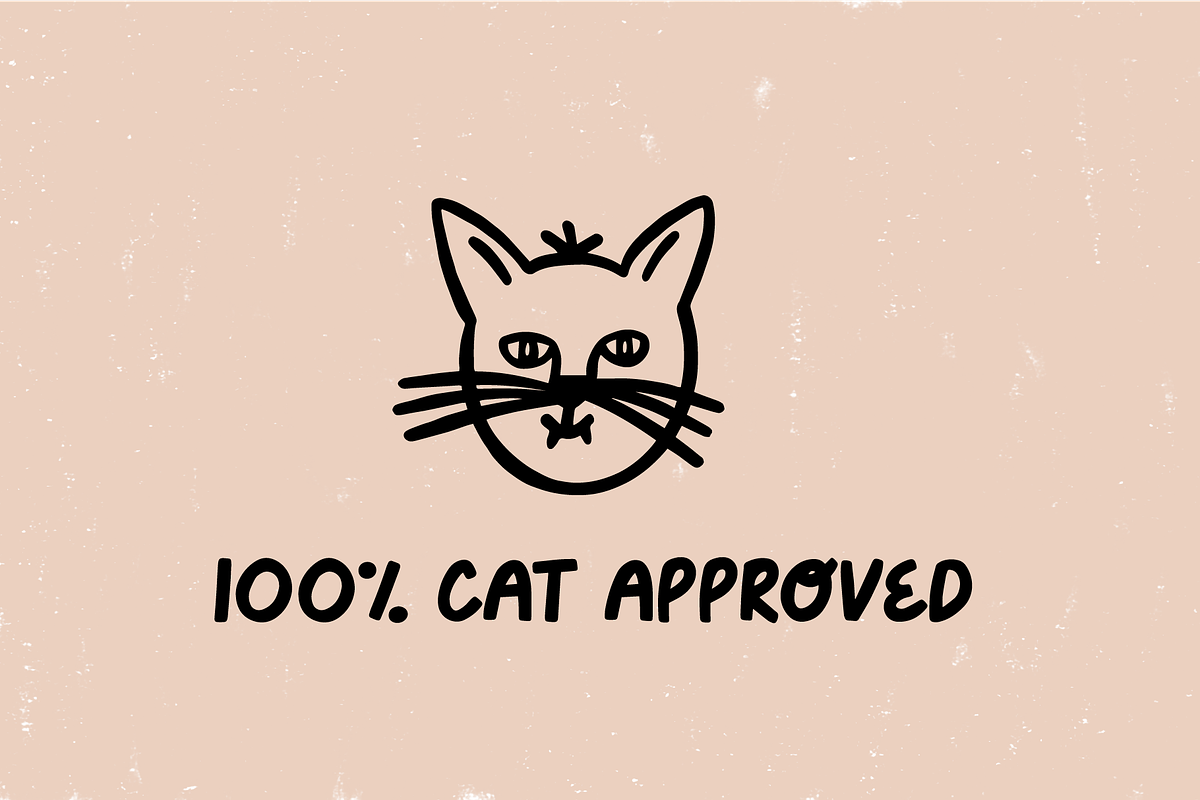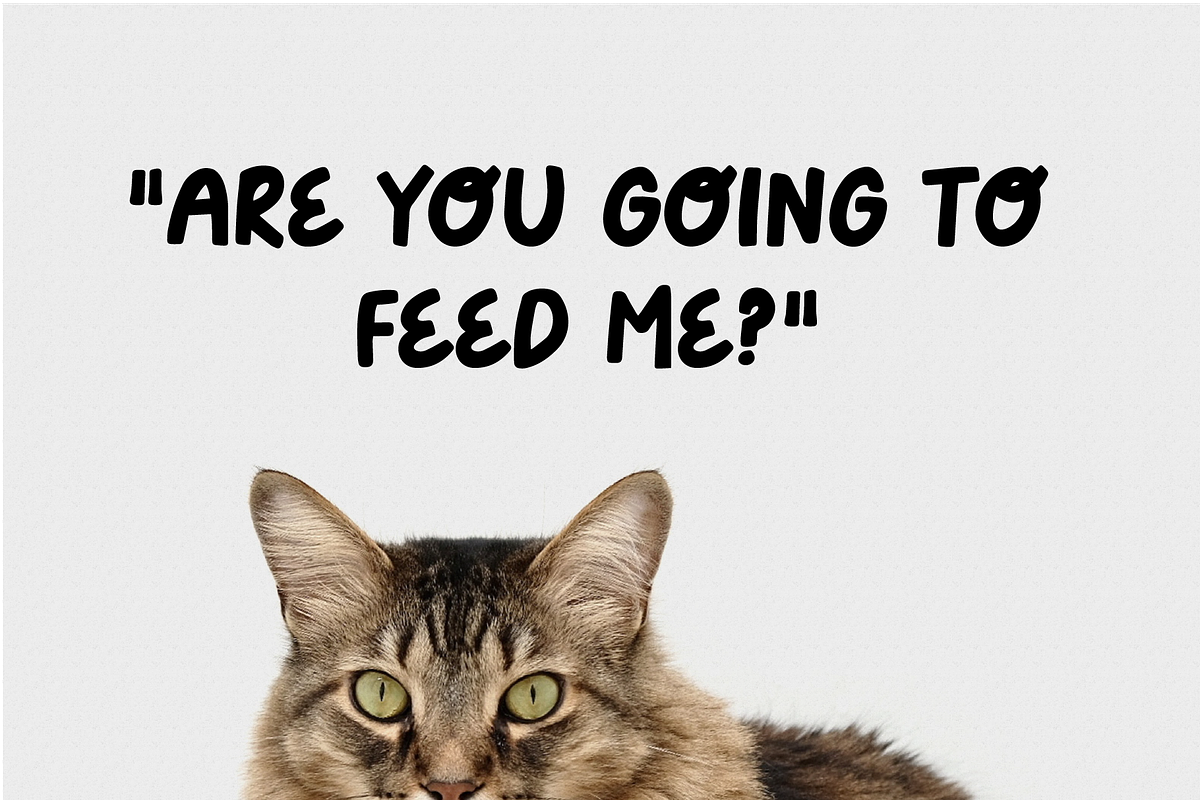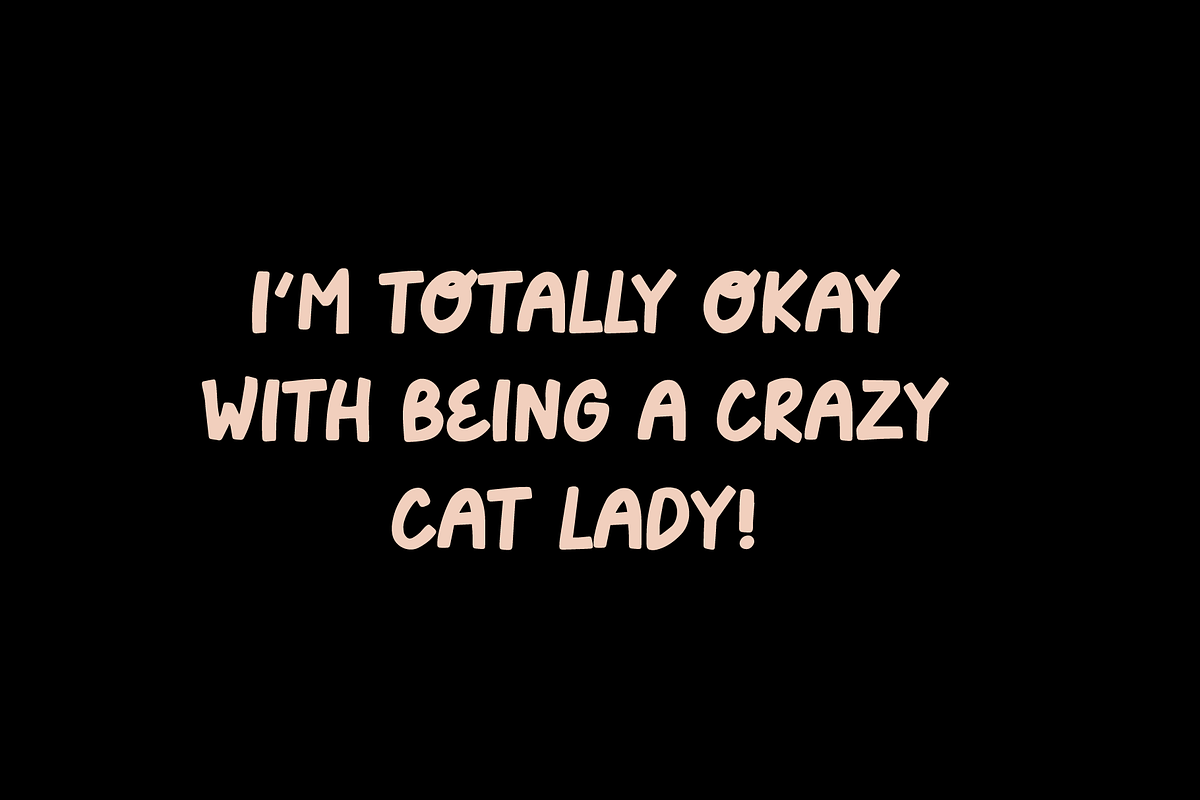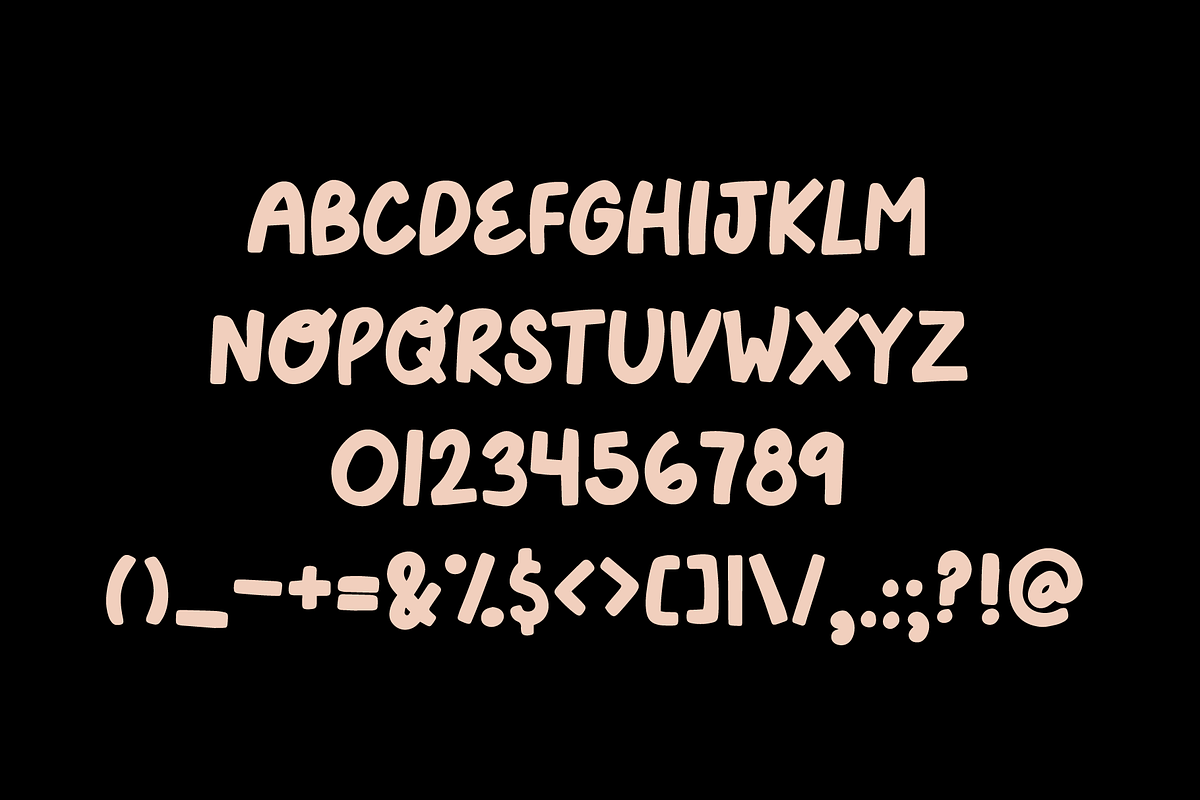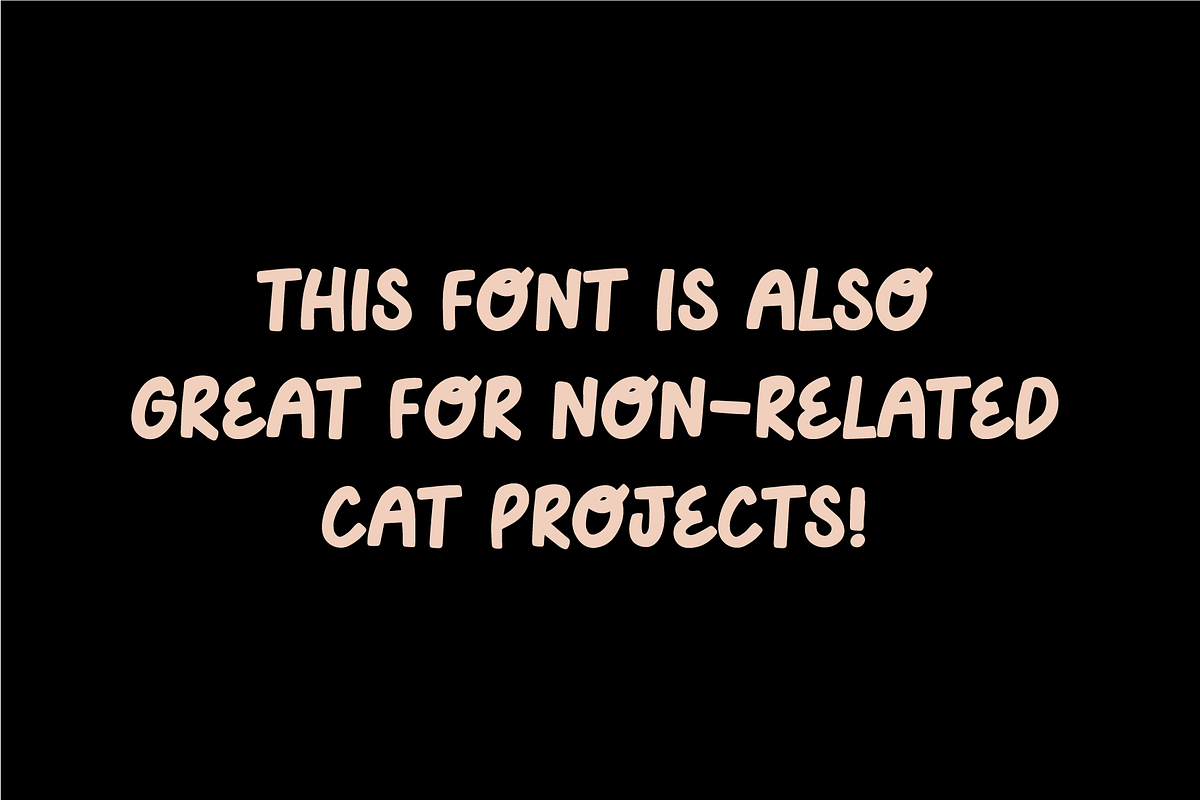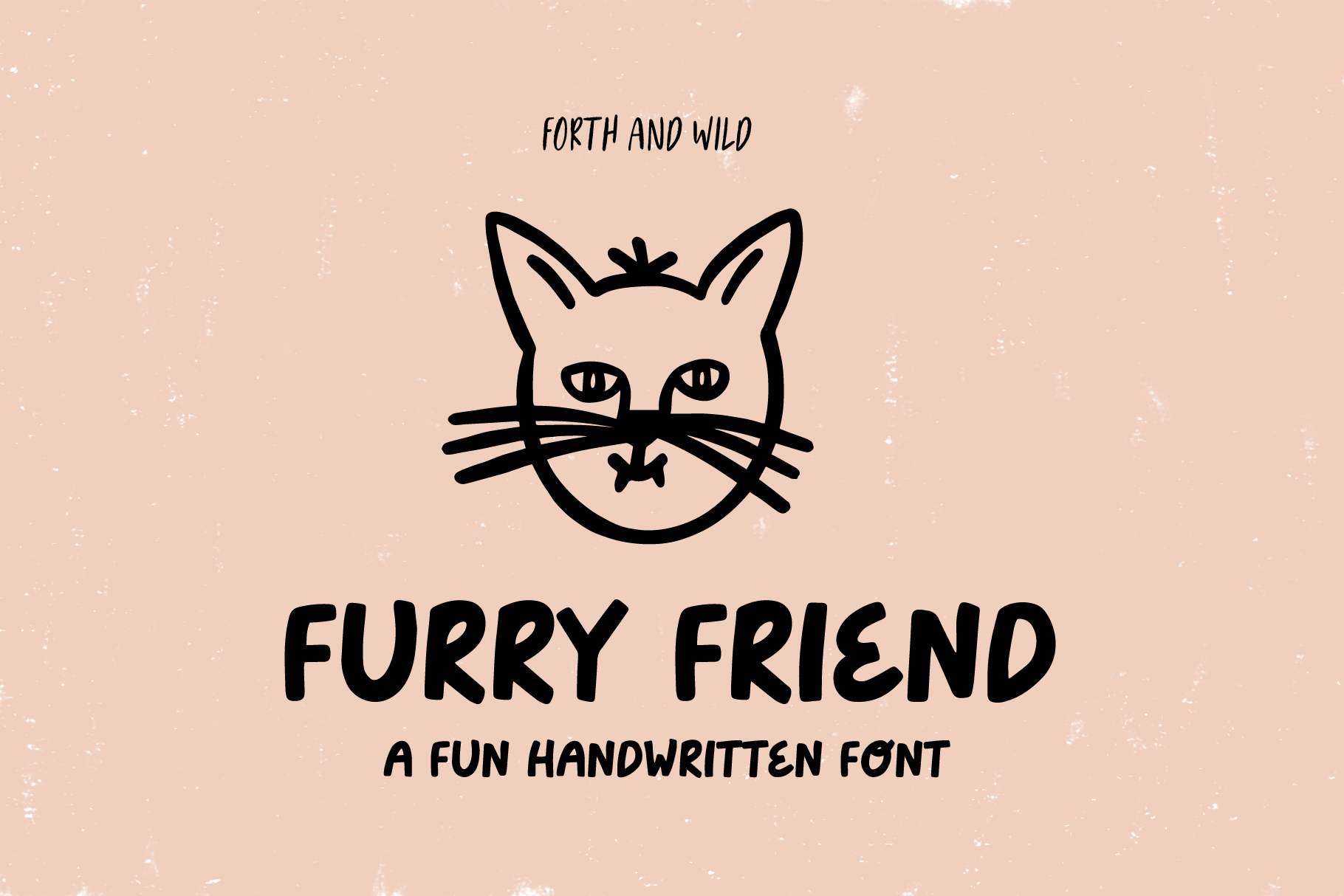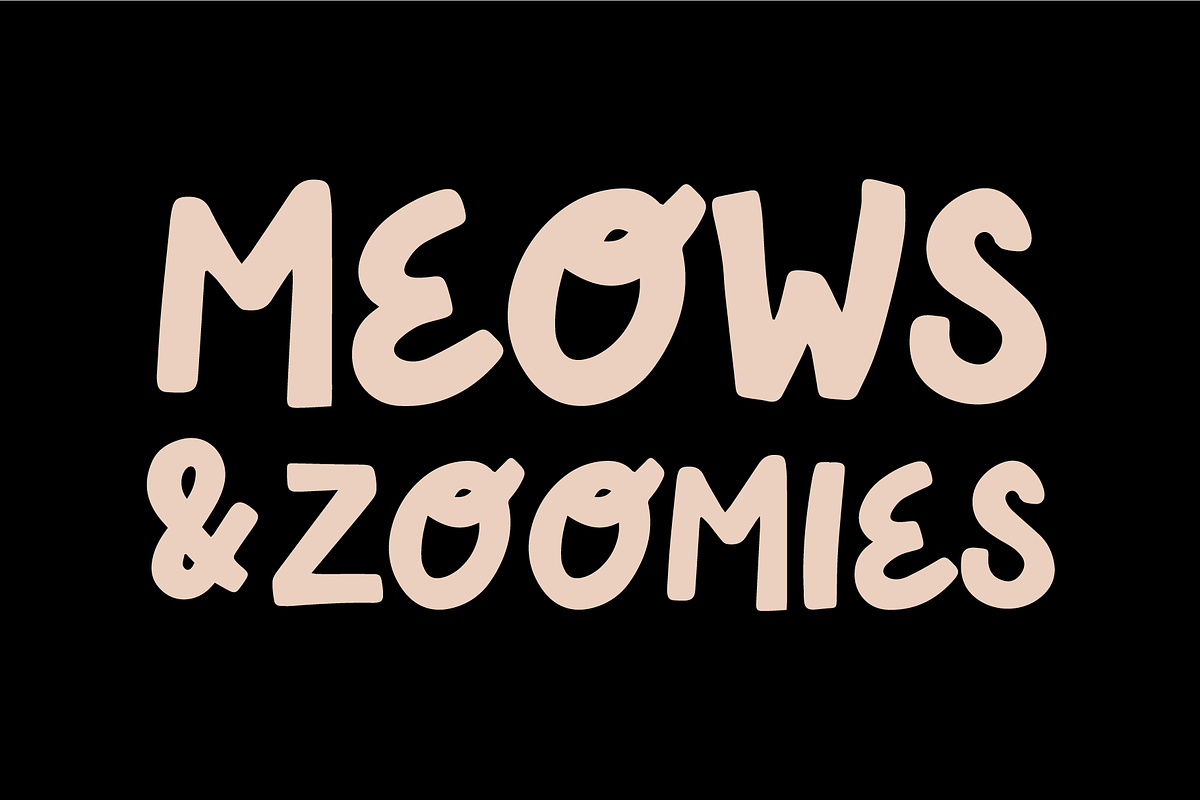
Furry Friend Handwritten Bold Font
Furry Friend is a playful handwritten font that is perfect for adding a personal touch to your next project.
Furry Friend is a handwritten UPPERCASE simple and bold display font. Furry Friend display font works great for creating logos, quotes to share on Instagram, social media, and more! Please note the font only comes with what you see on the second image. Punctuation and symbols are limited.